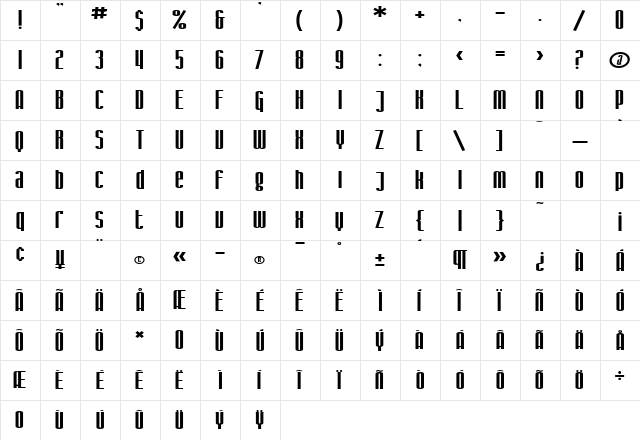
SF Iron Gothic Extended Regular
Design Context for SF Iron Gothic Extended Typeface
SF Iron Gothic Extended has the quiet confidence of well-executed sans-serif typography: versatile, unobtrusive, and dependable at any size.
Font Pairing: Works well alongside a characterful serif or display font that can carry the expressive load while SF Iron Gothic Extended handles the functional copy.
Pro Tip: Pair SF Iron Gothic Extended with a display or serif font for headlines — its neutral character makes it an excellent supporting player in complex typographic systems.